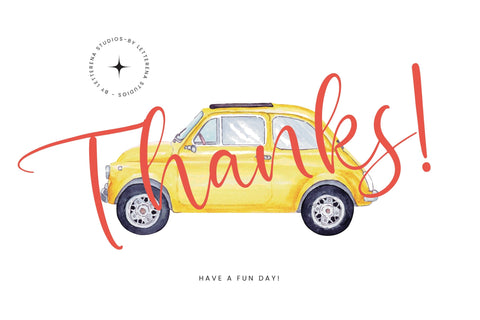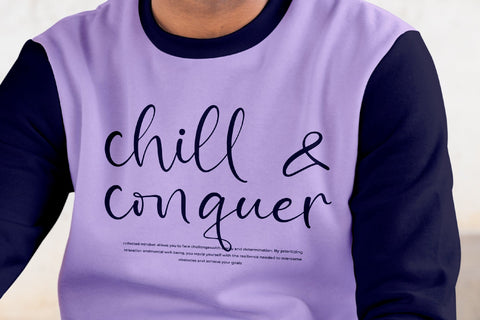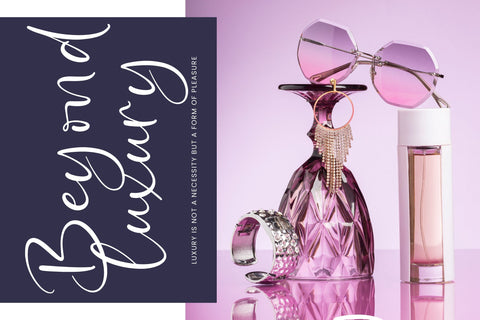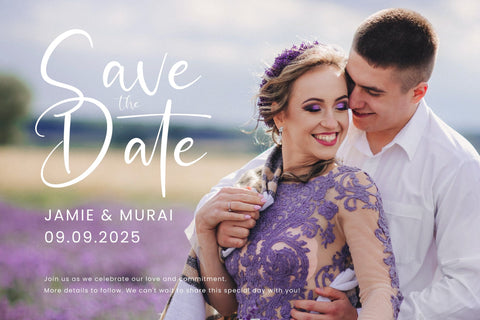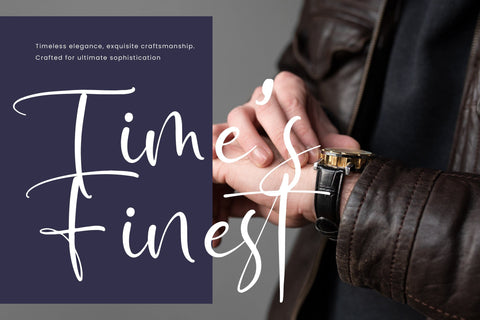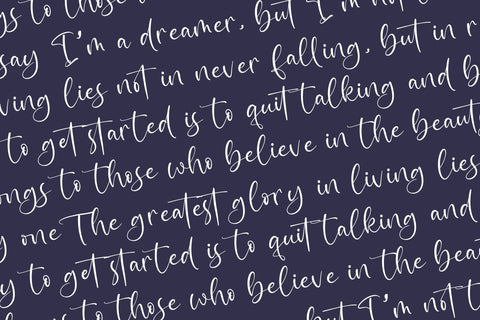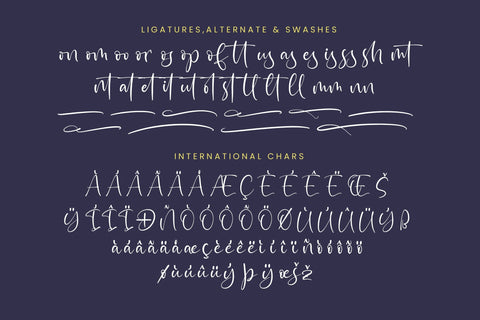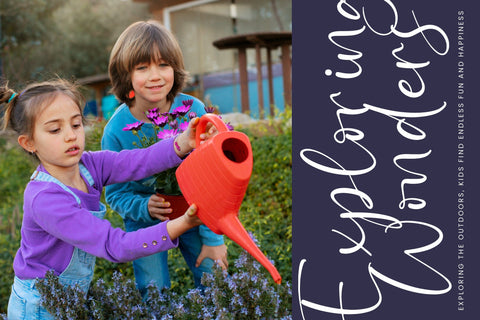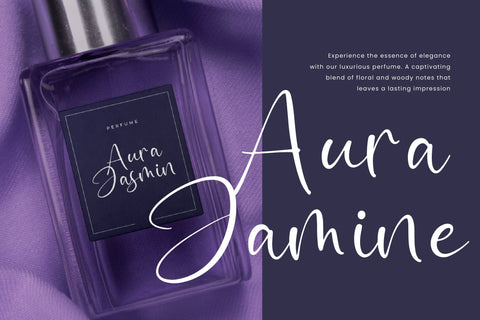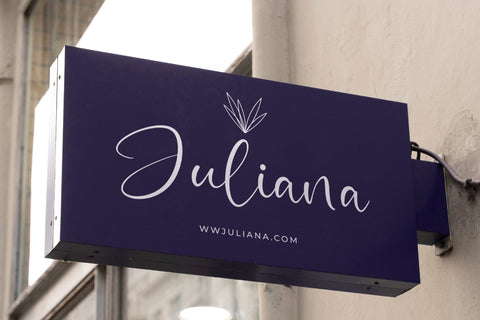
Diesel Getwiche - Quirky Handwritten Font
Diesel Getwiche - Quirky Handwritten Font , from Letterena, is a Luxury Script font, suitable for any projects such as: logos, branding projects, homeware designs, product packaging, mugs, quotes, posters, shopping bags, t-shirts, book covers, name card, invitation cards, greeting cards, label, photography, watermark, special events, and all your other luxury and beautiful projects that need a Luxury Script taste.